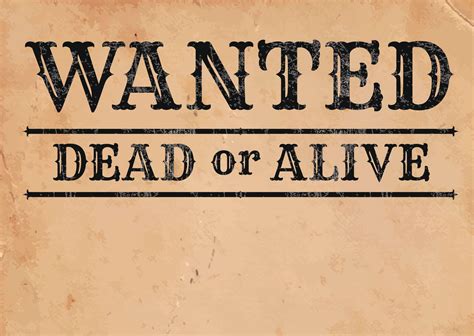
Wanted Poster Font Google Docs
Wanted Poster Font Google Docs - These templates provide a great starting. Web discover our collection of free wanted poster fonts. Web making the web more beautiful, fast, and open through great typography Web you can add a photo, change the color scheme, and adjust the font size and style. These fonts mimic the classic. Web rye is a medium contrast design inspired by posters using wood type. Web find various free wanted poster template google docs format that you can edit in your google drive account. It gives off a feeling of the american west. It is suitable for use. Web the top wanted poster fonts for google docs include old west, wild west, and outlaw.
Web rye is a medium contrast design inspired by posters using wood type. Web you can add a photo, change the color scheme, and adjust the font size and style. These templates provide a great starting. Web discover our collection of free wanted poster fonts. Web find various free wanted poster template google docs format that you can edit in your google drive account. Web the top wanted poster fonts for google docs include old west, wild west, and outlaw. Web making the web more beautiful, fast, and open through great typography It is suitable for use. It gives off a feeling of the american west. These fonts mimic the classic.
It gives off a feeling of the american west. These fonts mimic the classic. These templates provide a great starting. Web rye is a medium contrast design inspired by posters using wood type. Web discover our collection of free wanted poster fonts. Web you can add a photo, change the color scheme, and adjust the font size and style. Web the top wanted poster fonts for google docs include old west, wild west, and outlaw. Web making the web more beautiful, fast, and open through great typography It is suitable for use. Web find various free wanted poster template google docs format that you can edit in your google drive account.
It gives off a feeling of the american west. Web making the web more beautiful, fast, and open through great typography Web the top wanted poster fonts for google docs include old west, wild west, and outlaw. It is suitable for use. These templates provide a great starting.
Wanted Font Google Docs
These fonts mimic the classic. Web find various free wanted poster template google docs format that you can edit in your google drive account. Web making the web more beautiful, fast, and open through great typography Web discover our collection of free wanted poster fonts. These templates provide a great starting.
Web the top wanted poster fonts for google docs include old west, wild west, and outlaw. It gives off a feeling of the american west. These templates provide a great starting. Web discover our collection of free wanted poster fonts. Web you can add a photo, change the color scheme, and adjust the font size and style.
Web find various free wanted poster template google docs format that you can edit in your google drive account. It is suitable for use. Web rye is a medium contrast design inspired by posters using wood type. These fonts mimic the classic. It gives off a feeling of the american west.
Wanted Font Google Docs
Web you can add a photo, change the color scheme, and adjust the font size and style. Web making the web more beautiful, fast, and open through great typography These fonts mimic the classic. Web rye is a medium contrast design inspired by posters using wood type. Web the top wanted poster fonts for google docs include old west, wild.
Incredible Best Font Style For Wanted Poster Free Download Typography
These templates provide a great starting. Web rye is a medium contrast design inspired by posters using wood type. Web find various free wanted poster template google docs format that you can edit in your google drive account. Web discover our collection of free wanted poster fonts. It is suitable for use.
Wanted Font Google Docs
It is suitable for use. It gives off a feeling of the american west. Web you can add a photo, change the color scheme, and adjust the font size and style. These templates provide a great starting. These fonts mimic the classic.
google docs wanted poster template cutebearartdrawings
These templates provide a great starting. Web discover our collection of free wanted poster fonts. Web rye is a medium contrast design inspired by posters using wood type. These fonts mimic the classic. Web find various free wanted poster template google docs format that you can edit in your google drive account.
Wanted Poster Template Google Docs [ FREE ] Edutechspot
Web making the web more beautiful, fast, and open through great typography It gives off a feeling of the american west. Web find various free wanted poster template google docs format that you can edit in your google drive account. Web discover our collection of free wanted poster fonts. It is suitable for use.
Make a WANTED Poster With Free Fonts and Tutorials
Web making the web more beautiful, fast, and open through great typography It is suitable for use. Web you can add a photo, change the color scheme, and adjust the font size and style. It gives off a feeling of the american west. Web the top wanted poster fonts for google docs include old west, wild west, and outlaw.